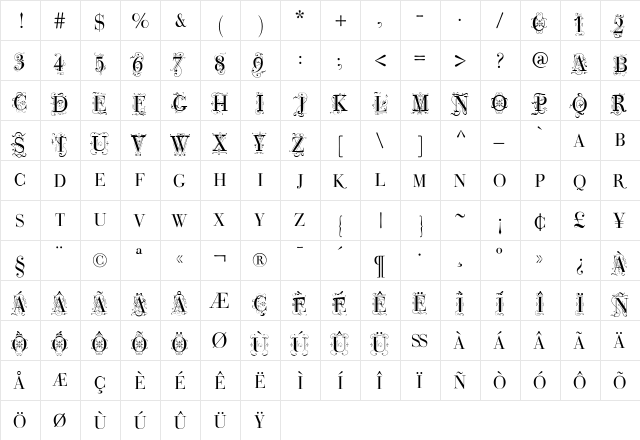
BodoniClassicDecoCaps Regular
Design Context for BodoniClassicDecoCaps Typeface
BodoniClassicDecoCaps wears its vintage influences proudly, with letterforms that recall mid-century signage, classic packaging, and nostalgia-driven design.
Font Pairing: Combine BodoniClassicDecoCaps with a simple slab or neutral sans — period-accurate companions reinforce the vintage feel without competing for attention.
Pro Tip: Lean into BodoniClassicDecoCaps's period character by pairing it with aged paper textures, muted colour palettes, and vintage illustration styles.